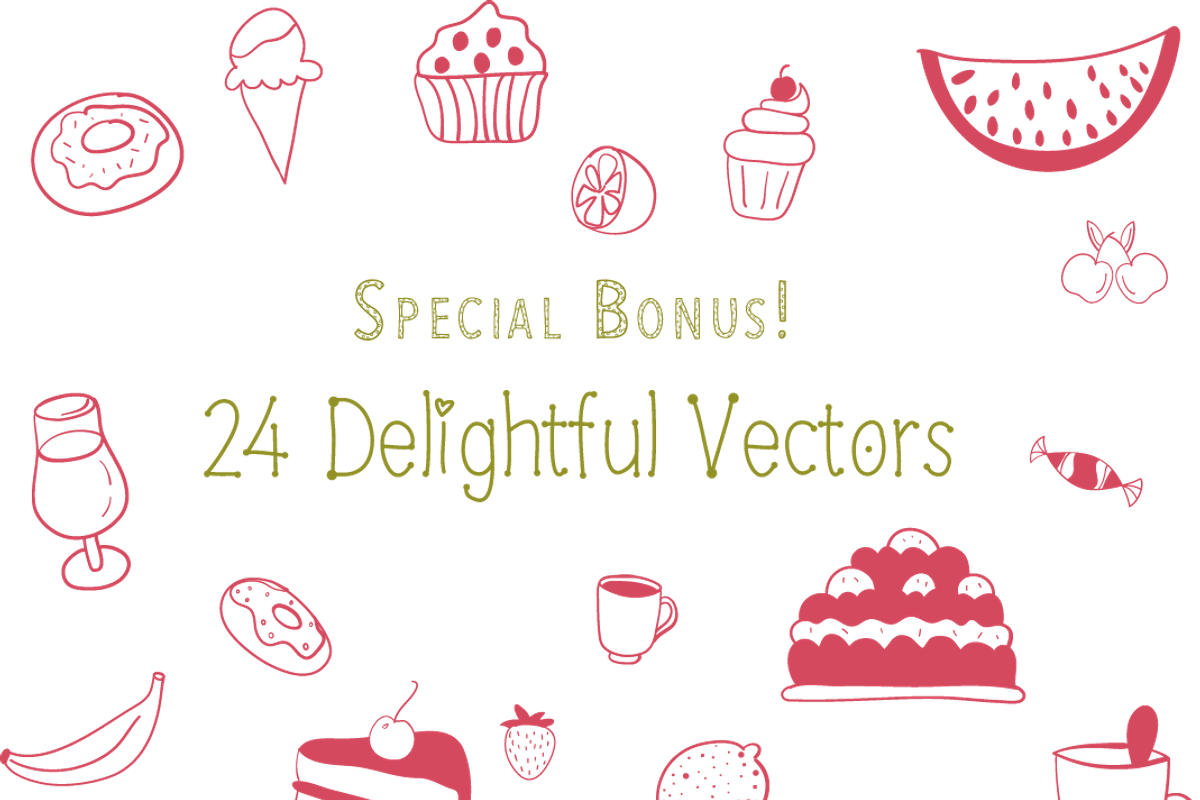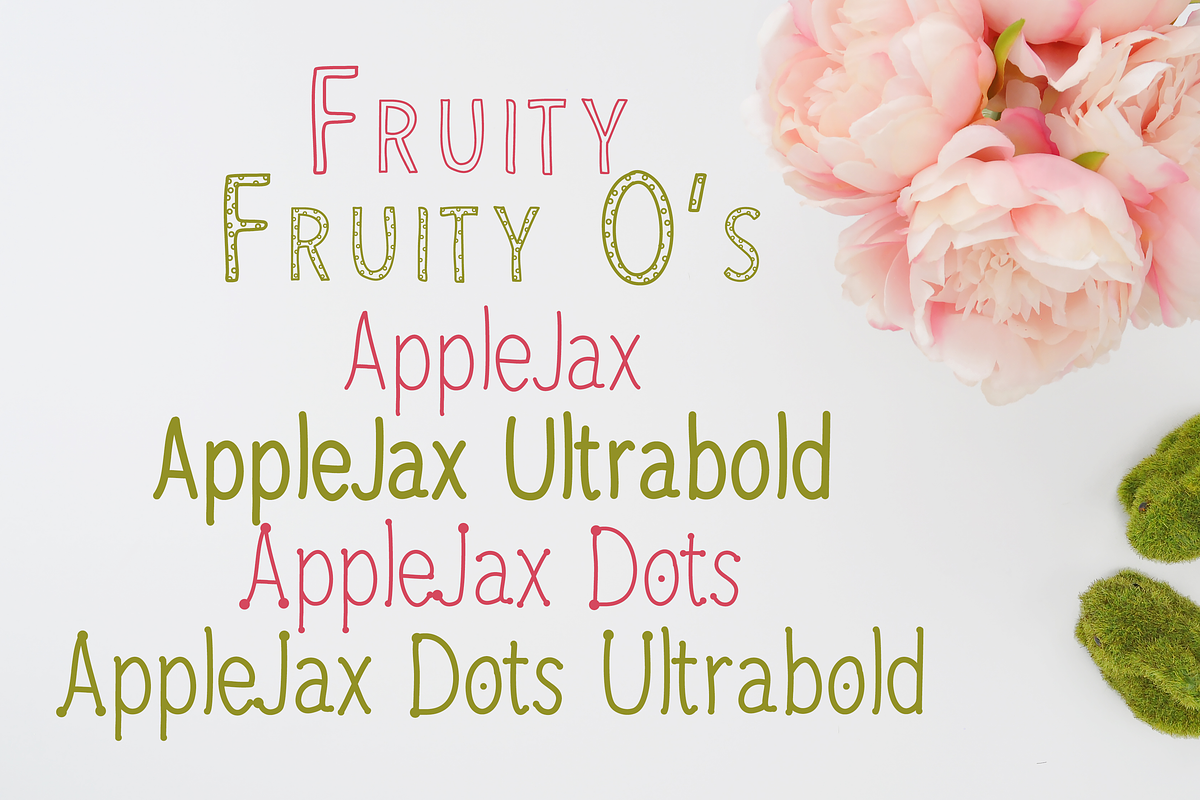
Fruity AppleJax - Handwritten Fonts
Fruity AppleJax - Handwritten Fonts by Phat Happy Life is a font selected for branding, posters, packaging, typography.
Why Fruity AppleJax - Handwritten Fonts is worth a look
Fruity AppleJax - Handwritten Fonts by Phat Happy Life fits naturally into Branding, posters, packaging, typography.